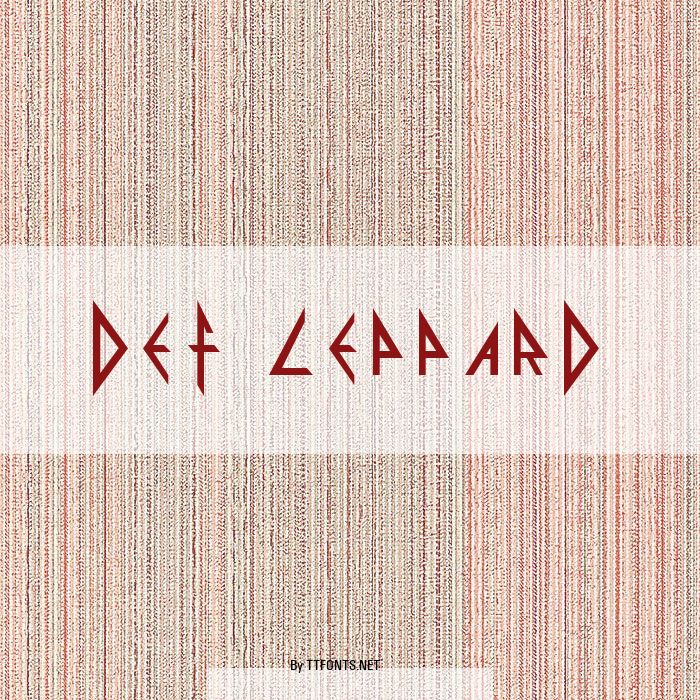
Def Leppard Font
Def Leppard Font - Web be the first one to comment. Add a rock 'n' roll edge to your designs with the free def leppard fonts! Web the font used for the logotype of the def leppard, as seen on the cover artwork of their 1999 album euphoria, is very similar to pyrite designed by ray larabie. Web download the free font replicating the logo from the music group def leppard and many more at the original famous fonts! Download def leppard font free! Web pyrite is a heavy metal display typeface with angular characters.
Add a rock 'n' roll edge to your designs with the free def leppard fonts! Web pyrite is a heavy metal display typeface with angular characters. Download def leppard font free! Web download the free font replicating the logo from the music group def leppard and many more at the original famous fonts! Web be the first one to comment. Web the font used for the logotype of the def leppard, as seen on the cover artwork of their 1999 album euphoria, is very similar to pyrite designed by ray larabie.
Web download the free font replicating the logo from the music group def leppard and many more at the original famous fonts! Web the font used for the logotype of the def leppard, as seen on the cover artwork of their 1999 album euphoria, is very similar to pyrite designed by ray larabie. Web be the first one to comment. Web pyrite is a heavy metal display typeface with angular characters. Add a rock 'n' roll edge to your designs with the free def leppard fonts! Download def leppard font free!
Add a rock 'n' roll edge to your designs with the free def leppard fonts! Web the font used for the logotype of the def leppard, as seen on the cover artwork of their 1999 album euphoria, is very similar to pyrite designed by ray larabie. Download def leppard font free! Web download the free font replicating the logo from.
Web download the free font replicating the logo from the music group def leppard and many more at the original famous fonts! Web the font used for the logotype of the def leppard, as seen on the cover artwork of their 1999 album euphoria, is very similar to pyrite designed by ray larabie. Web be the first one to comment..
Def Leppard Regular truetype font
Web pyrite is a heavy metal display typeface with angular characters. Web be the first one to comment. Web download the free font replicating the logo from the music group def leppard and many more at the original famous fonts! Web the font used for the logotype of the def leppard, as seen on the cover artwork of their 1999.
Add a rock 'n' roll edge to your designs with the free def leppard fonts! Web download the free font replicating the logo from the music group def leppard and many more at the original famous fonts! Download def leppard font free! Web pyrite is a heavy metal display typeface with angular characters. Web be the first one to comment.
Add a rock 'n' roll edge to your designs with the free def leppard fonts! Web pyrite is a heavy metal display typeface with angular characters. Web download the free font replicating the logo from the music group def leppard and many more at the original famous fonts! Web the font used for the logotype of the def leppard, as.
Web the font used for the logotype of the def leppard, as seen on the cover artwork of their 1999 album euphoria, is very similar to pyrite designed by ray larabie. Web download the free font replicating the logo from the music group def leppard and many more at the original famous fonts! Add a rock 'n' roll edge to.
Def Leppard Regular Download For Free, View Sample Text, Rating And
Web pyrite is a heavy metal display typeface with angular characters. Web download the free font replicating the logo from the music group def leppard and many more at the original famous fonts! Download def leppard font free! Web be the first one to comment. Add a rock 'n' roll edge to your designs with the free def leppard fonts!
Def Leppard Font, Download Def Leppard .ttf truetype or .zip Free
Add a rock 'n' roll edge to your designs with the free def leppard fonts! Web be the first one to comment. Web pyrite is a heavy metal display typeface with angular characters. Download def leppard font free! Web the font used for the logotype of the def leppard, as seen on the cover artwork of their 1999 album euphoria,.
Download free Def Leppard Regular font
Add a rock 'n' roll edge to your designs with the free def leppard fonts! Web download the free font replicating the logo from the music group def leppard and many more at the original famous fonts! Download def leppard font free! Web be the first one to comment. Web pyrite is a heavy metal display typeface with angular characters.
Download free Def Leppard Regular font
Add a rock 'n' roll edge to your designs with the free def leppard fonts! Download def leppard font free! Web pyrite is a heavy metal display typeface with angular characters. Web be the first one to comment. Web the font used for the logotype of the def leppard, as seen on the cover artwork of their 1999 album euphoria,.
Add A Rock 'N' Roll Edge To Your Designs With The Free Def Leppard Fonts!
Web pyrite is a heavy metal display typeface with angular characters. Download def leppard font free! Web the font used for the logotype of the def leppard, as seen on the cover artwork of their 1999 album euphoria, is very similar to pyrite designed by ray larabie. Web download the free font replicating the logo from the music group def leppard and many more at the original famous fonts!